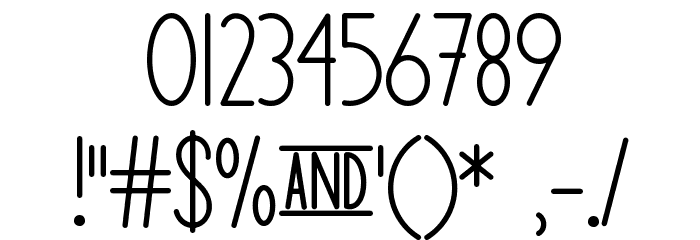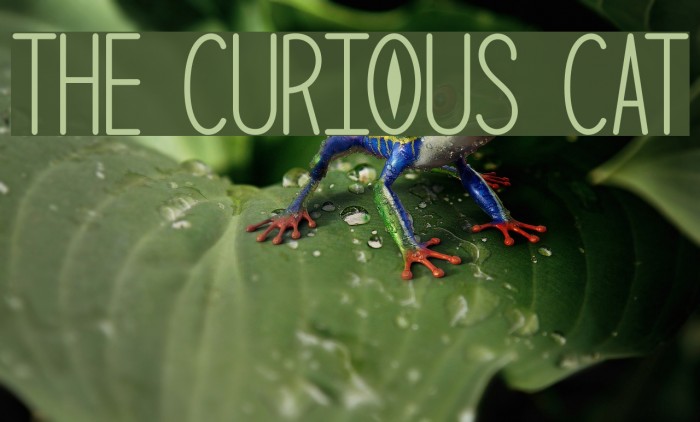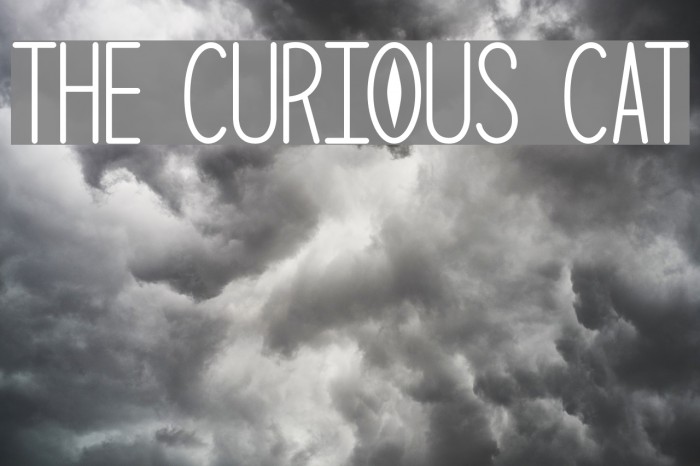
The Curious Cat Font
This font features a unique and playful design with elongated, narrow characters that give it a modern and quirky appearance. The uppercase letters are particularly distinctive, with some characters like 'O' having an eye-catching, decorative element inside. The numbers and special characters maintain the same playful style, making the font suitable for creative and informal projects. The overall look is clean yet whimsical, with a consistent line weight that ensures readability while adding a touch of personality.
A playful, modern font with elongated, narrow characters and decorative elements.
- Proposed Projects: Ideal for children's books, creative branding, playful posters, and quirky invitations.
- Overall Style: Modern, Quirky